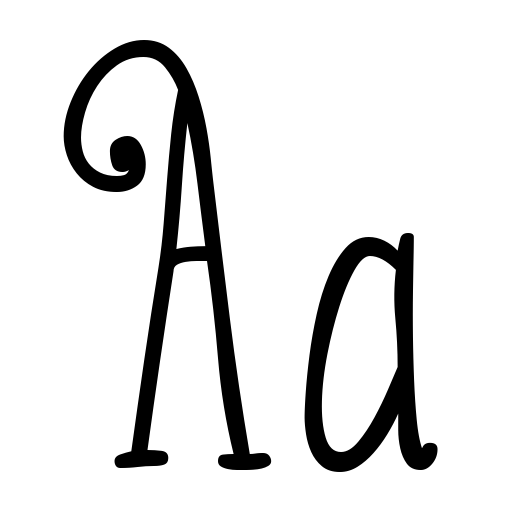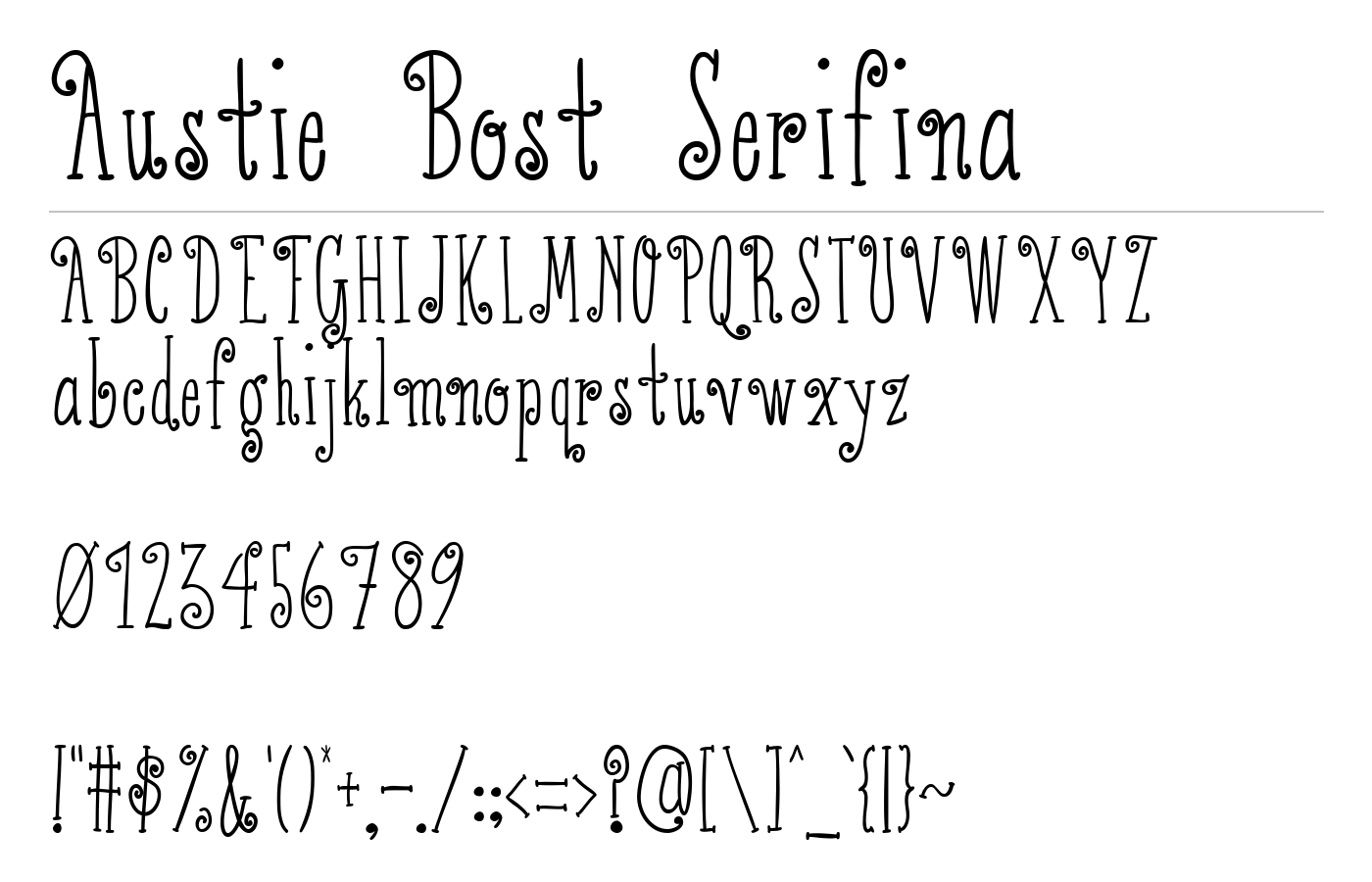
Austie Bost Serifina is a whimsical, serif typeface with a light weight and narrow width, featuring playful, curly terminal details on many characters that give it a quirky and charming personality. Its tall, slender letterforms and delicate stroke contrast create a vintage yet fun feel, making it perfect for creative projects, invitations, or branding that seeks a friendly and artistic touch. This font works well in headlines and decorative text where a unique, eye-catching style is desired.
Austie Bost Serifina Font
About Austie Bost Serifina Font
| Font family | Austie Bost Serifina Font |
| Designer | Austin Owens |